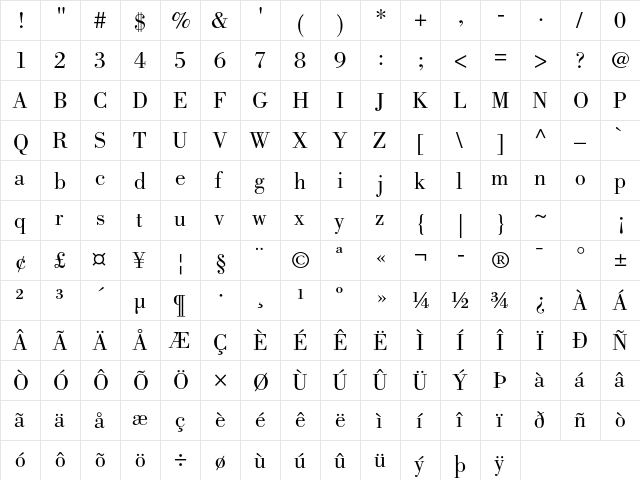
Bodoni Std Book Font Preview
Bodoni Std Book
Bodoni Std Book Font Details
| Style | Book |
| Designer | Morris Fuller Benton |
Design Context for Bodoni Std Typeface
Bodoni Std takes a measured approach to typography — its balanced proportions and neutral character make it a reliable workhorse for both digital and print work.